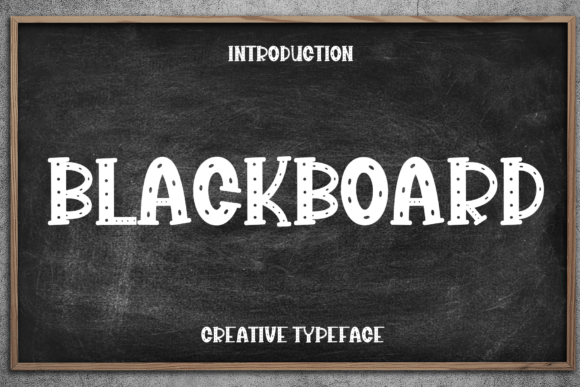
The Charm of Blackboard Font: A Designer’s Delight
I still remember the time I was working on a back-to-school project for a client, and I was struggling to find the perfect font that would capture the essence of a traditional classroom. The client wanted something that would evoke a sense of nostalgia and playfulness, but I was coming up blank. That’s when I stumbled upon the Blackboard font, and it was love at first sight! ✨ The charming, hand-drawn look and distinct “chalk-dot” detailing within each character instantly transported me to a vintage chalkboard, and I knew I had found the perfect fit.
- ✅ The Blackboard font’s unique texture and charm make it perfect for educational materials, restaurant menu boards, and creative projects that need an authentic, DIY feel.
- ✨ The font’s playful, hand-drawn look with distinct “chalk-dot” detailing within each character adds a layer of personality and warmth to any design.
- ✅ It pairs beautifully with simple line illustrations and hand-drawn borders, allowing its unique textures to stand out without competing for attention.
While the Blackboard font is a stunning addition to any design, there are a few quirks to keep in mind. 🤔 For example, the font’s texture and detailing can be a bit overpowering if used in large blocks of text. Additionally, some characters may not be suitable for use at very small sizes, as the details can become lost. ⚠️ However, with a little creativity and experimentation, these limitations can easily be worked around.
The Blackboard font was inspired by the classic chalkboards found in traditional classrooms. The designer wanted to capture the essence of a vintage chalkboard, with its distinctive texture and playful, hand-drawn look. The result is a font that’s perfect for designs that need a touch of nostalgia and personality.
| What is the Blackboard font best used for? | The Blackboard font is best used for educational materials, restaurant menu boards, and creative projects that need an authentic, DIY feel. |
| Is the Blackboard font suitable for use at small sizes? | While the Blackboard font can be used at small sizes, it’s best to use it at larger sizes to take advantage of its unique texture and detailing. |